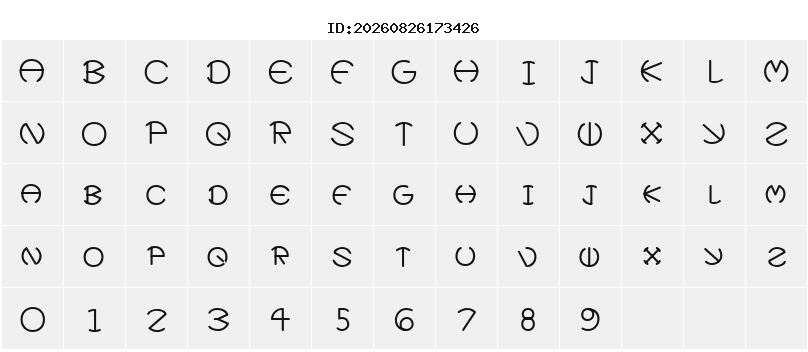
Xevius Preview
• Font Name: Xevius
• Full Font Name: Xevius Medium
About Xevius.ttf
Xevius.ttf is a modern, elegant sans-serif font designed for ultimate readability and visual harmony. Perfect for branding, headlines, web design, and print materials.